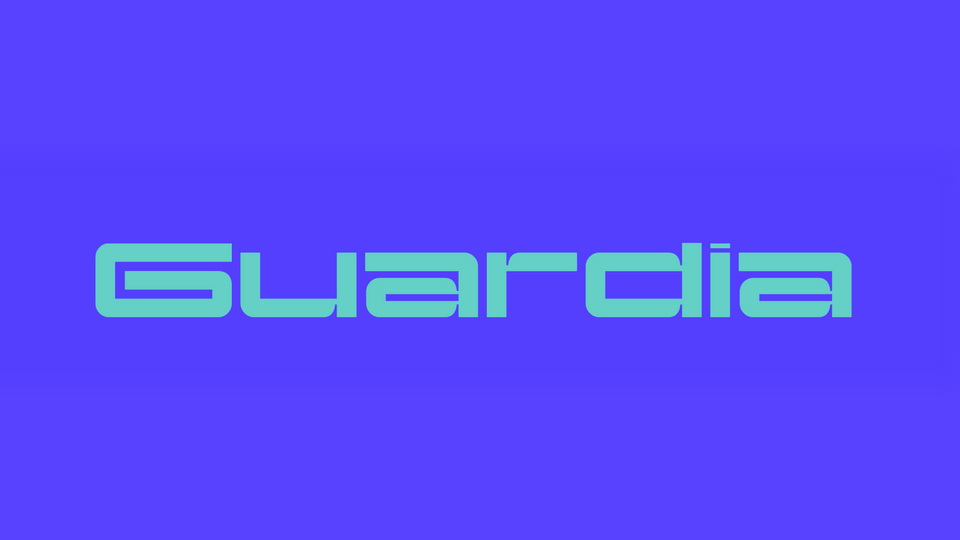
Download Guardia font, a typeface inspired by the logotype of the Spanish National Police. Guardia is interesting to us because it is deeply rooted in a 1980–90s graphic design aesthetic inspired by police forces as depicted in blockbusters movies.
Designer: Mateo Broillet